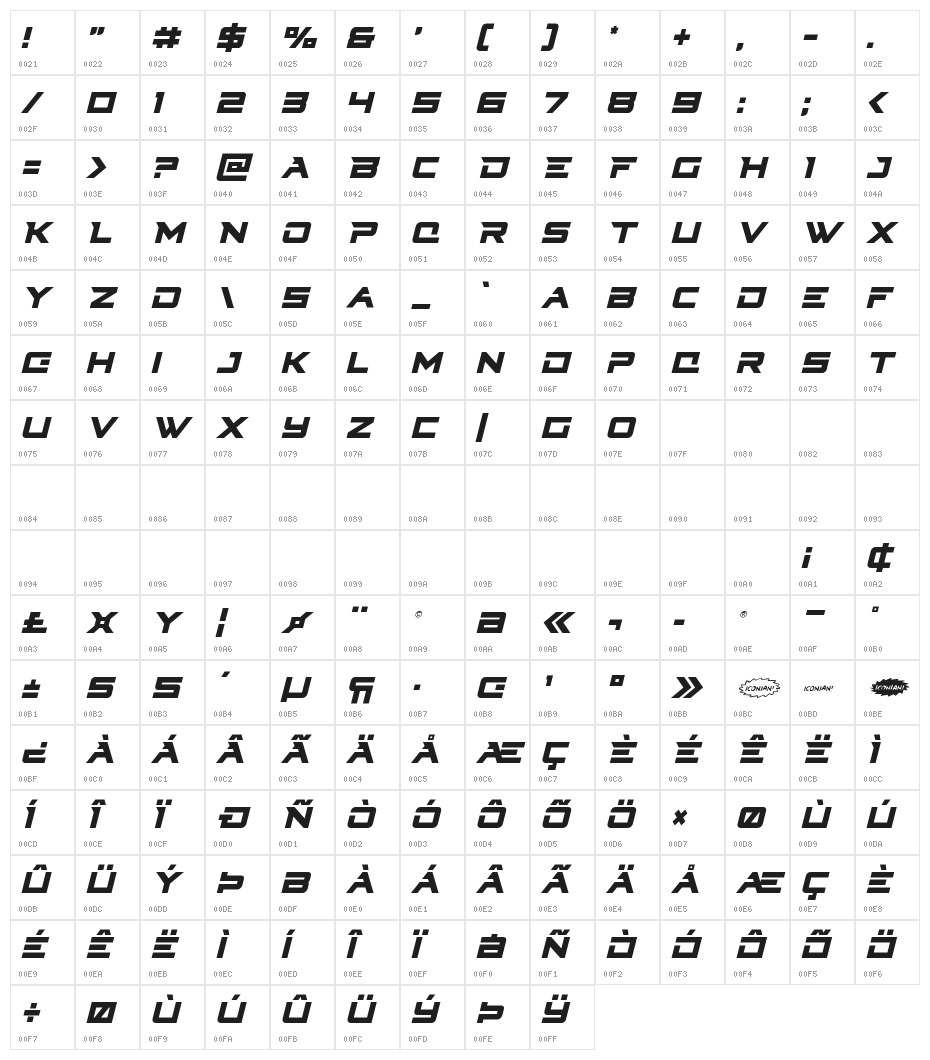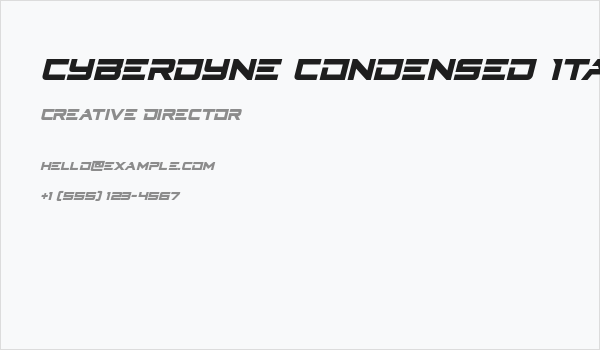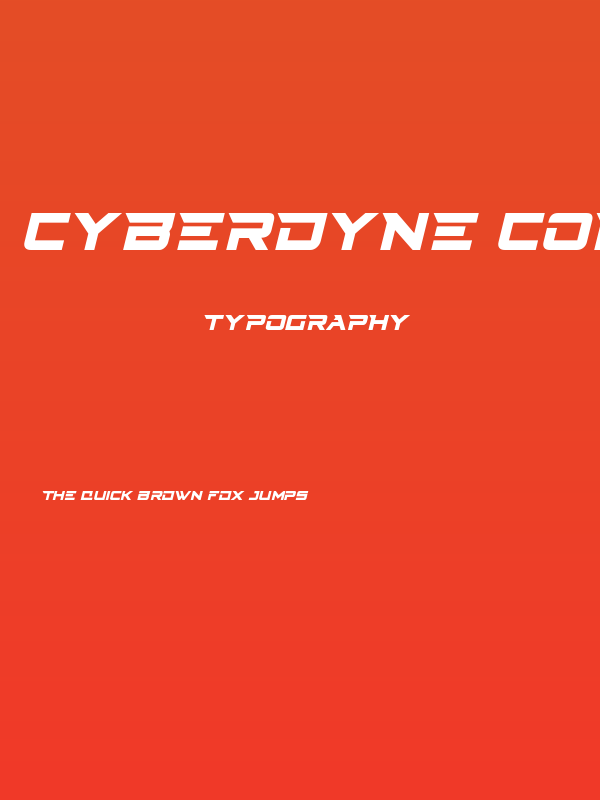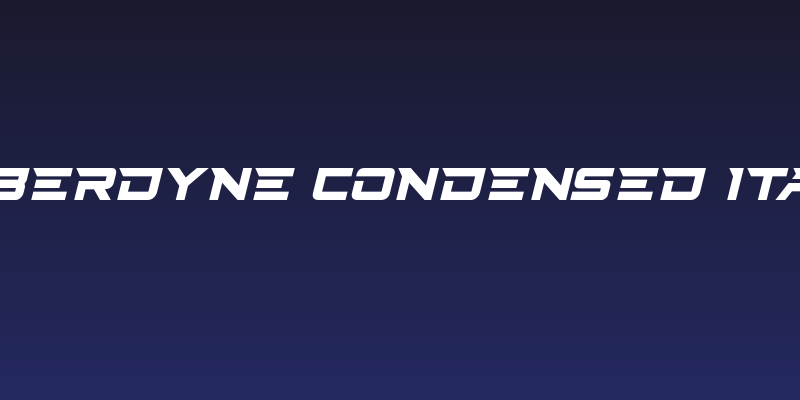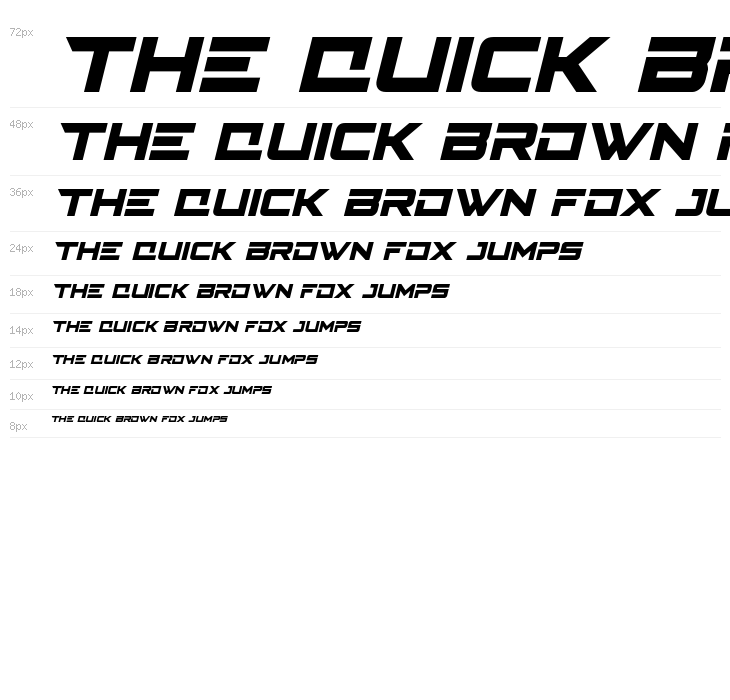
Cyberdyne Condensed Italic Font
Cyberdyne Condensed Italic Description
This font features a futuristic and angular design, characterized by its sharp edges and slanted orientation, giving it a dynamic and forward-moving appearance. The condensed nature of the font allows for efficient use of space, making it suitable for modern and tech-oriented designs. The italic style adds a sense of motion and urgency, enhancing its contemporary appeal. Each character is distinct, with a uniform stroke width that maintains readability while conveying a sleek, high-tech aesthetic. The font includes a full set of uppercase and lowercase letters, numbers, and a variety of special characters, making it versatile for various applications.
| Proposed Projects | Ideal for technology branding, sci-fi themed projects, video game interfaces, and modern advertising. |